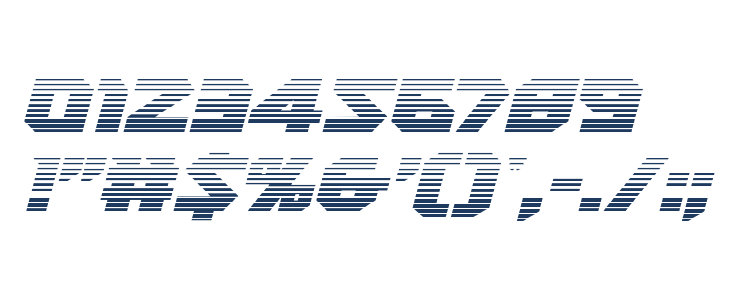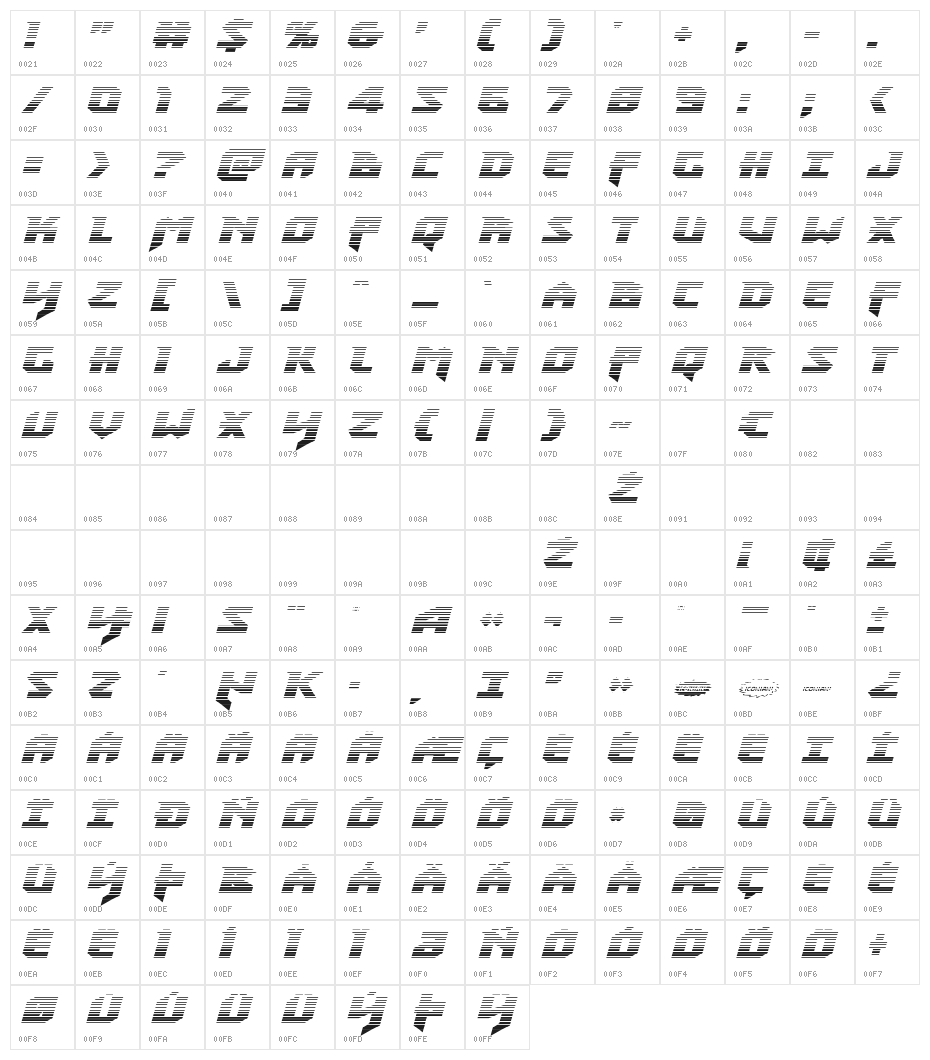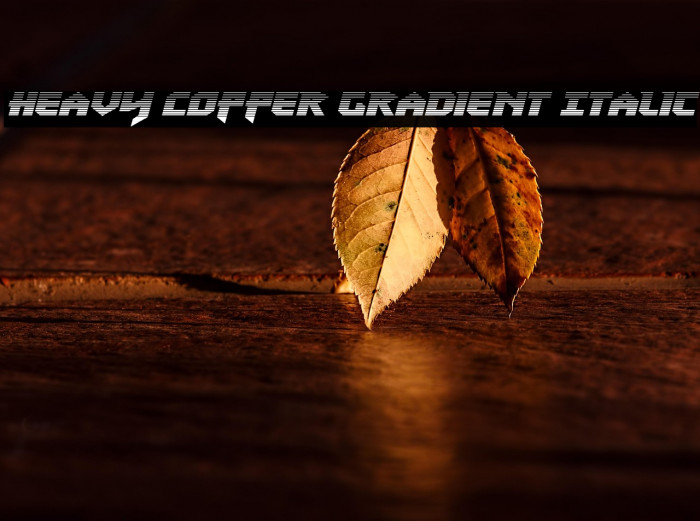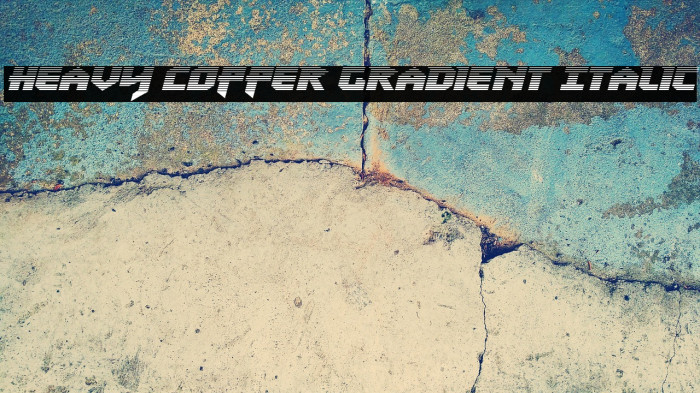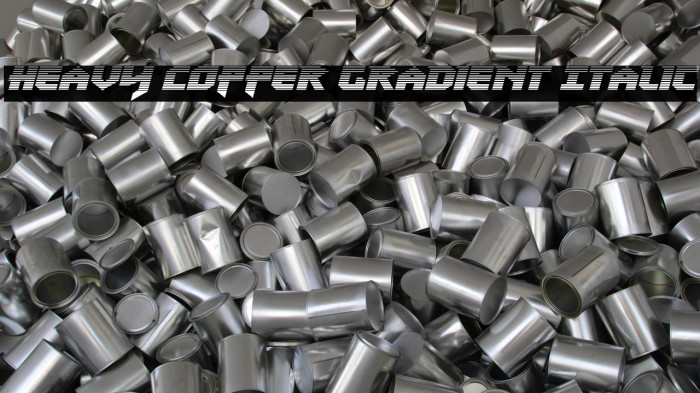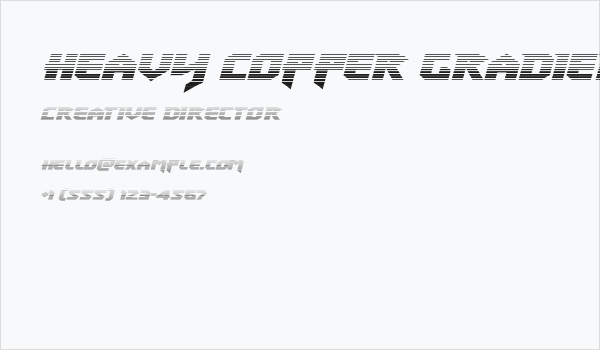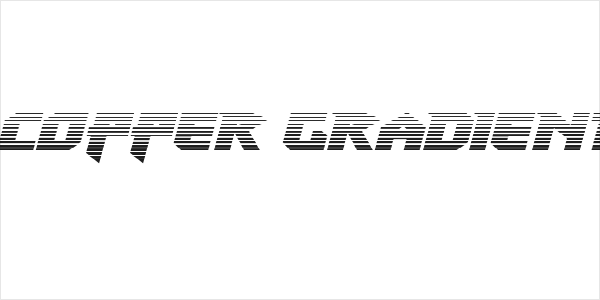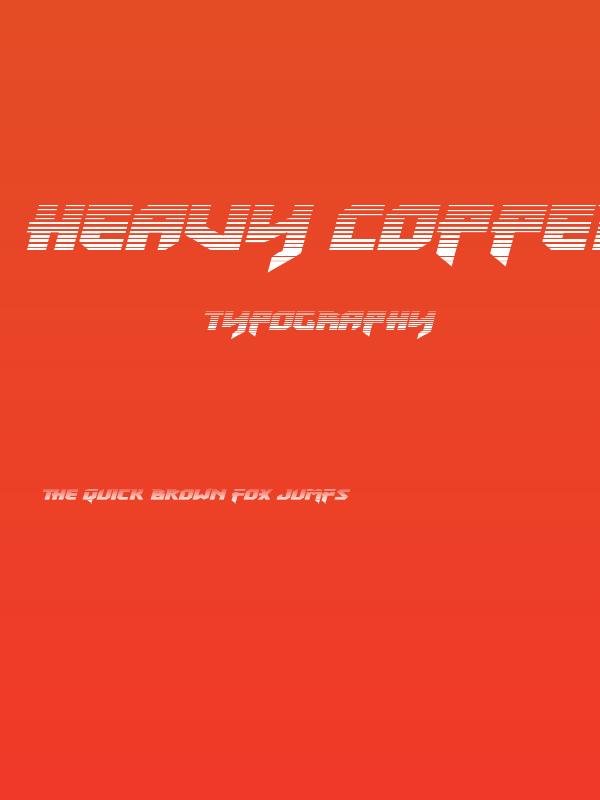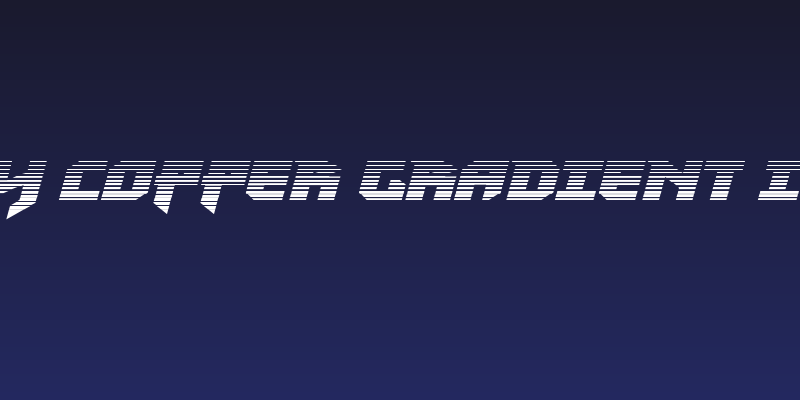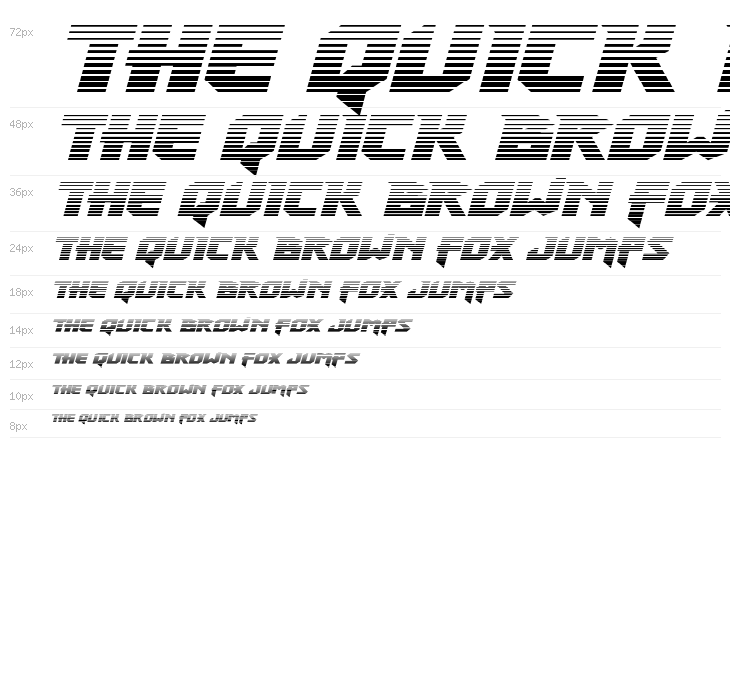
Heavy Copper Gradient Italic Font
Heavy Copper Gradient Italic Description
This font features a bold, futuristic design with a distinct striped pattern across each character, giving it a dynamic and energetic appearance. The italicized slant adds a sense of motion, making it ideal for projects that require a modern and edgy look. The characters are uniformly wide, with sharp angles and clean lines that enhance its contemporary style. The uppercase and lowercase letters maintain consistency in design, while the numbers and special characters complement the overall aesthetic. This font is perfect for eye-catching headlines, logos, and branding materials that aim to stand out.